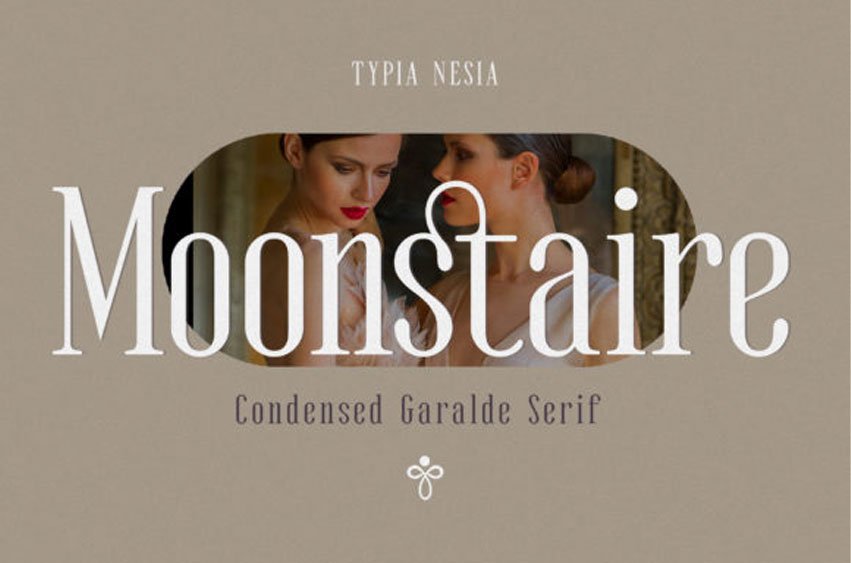
Moonstaire Font is a delicate and elegant serif font.
It looks beautiful on a variety of designs requiring a personalized style, such as wedding invitations, thank you cards, weddings, greeting cards, logos, and so on.